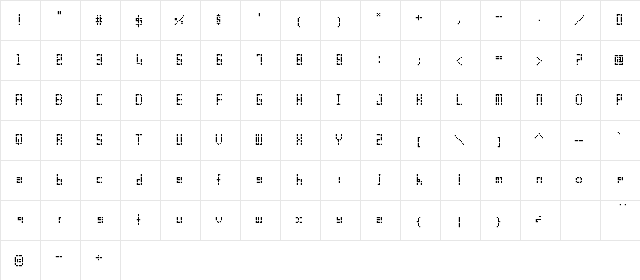
New pixels Regular
| Designer | Shuberth Dias |
Design Context for New pixels Typeface
New pixels is rooted in pixel-grid construction, making it a natural fit for game UI, retro computing aesthetics, and digital nostalgia projects.
Well-suited to indie game interfaces, retro computing aesthetics, and pixel art-adjacent design work.
Pro Tip: Use New pixels at sizes that align with its pixel grid for the sharpest rendering — scaling to non-integer multiples can introduce unwanted blur.